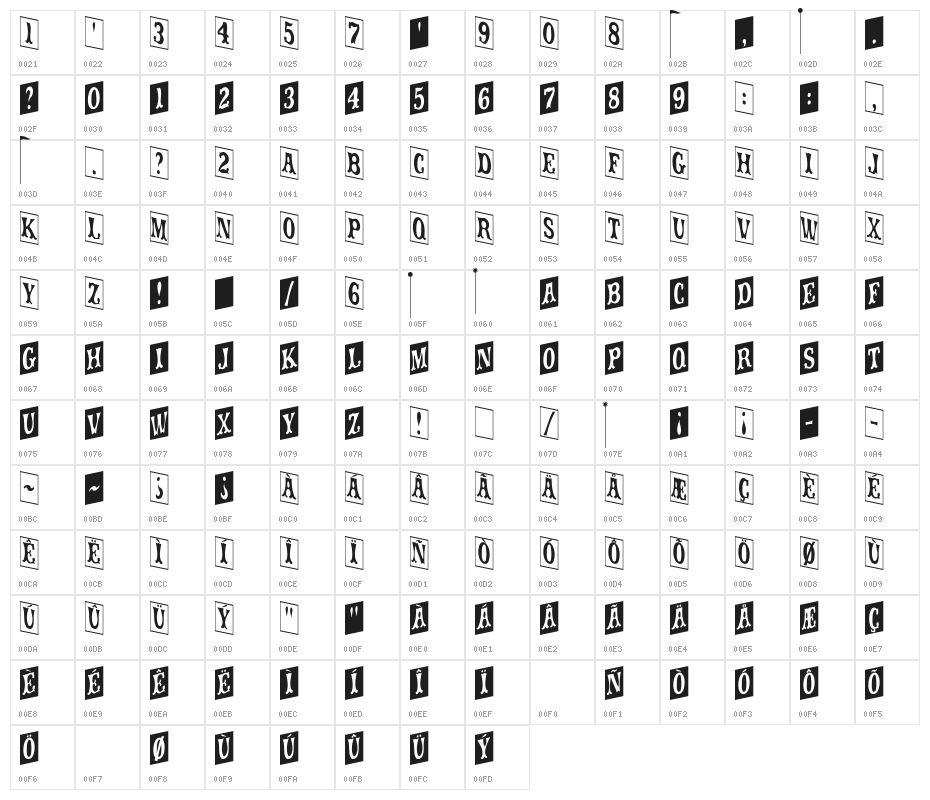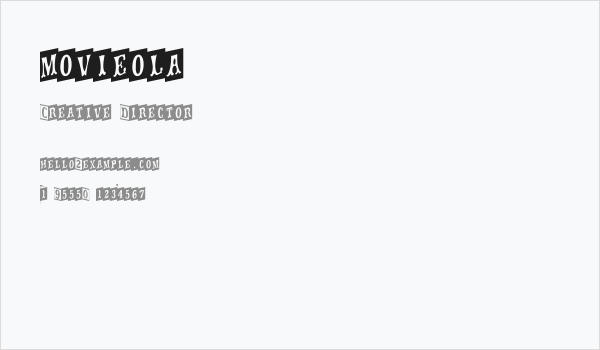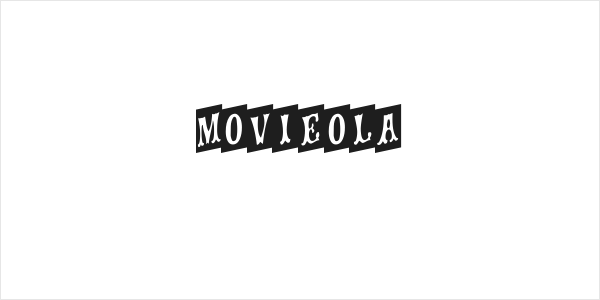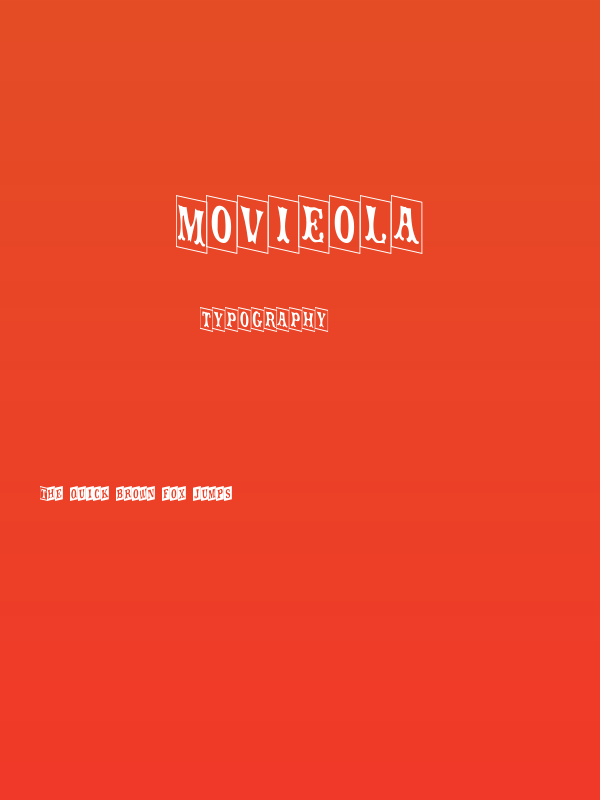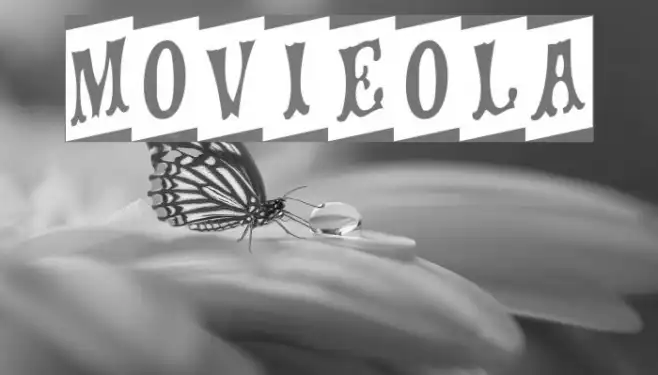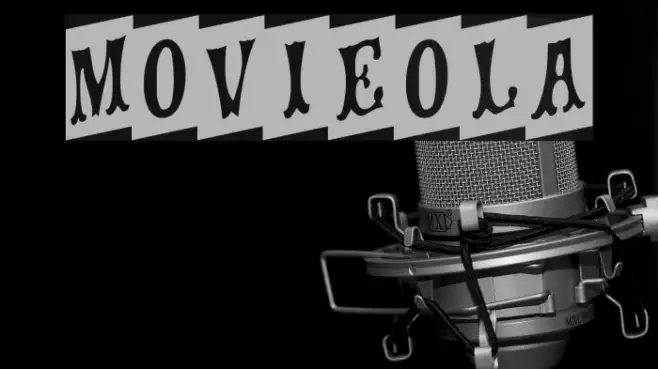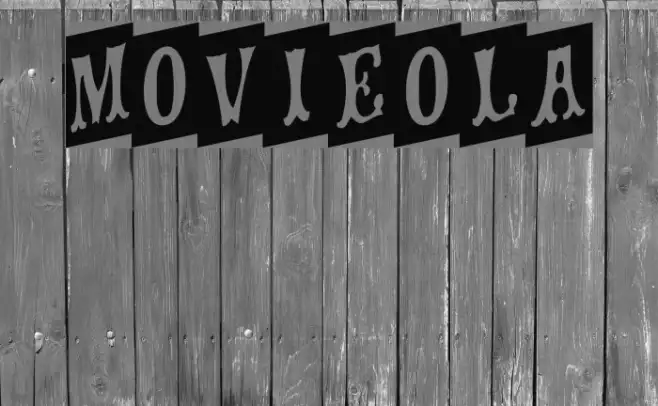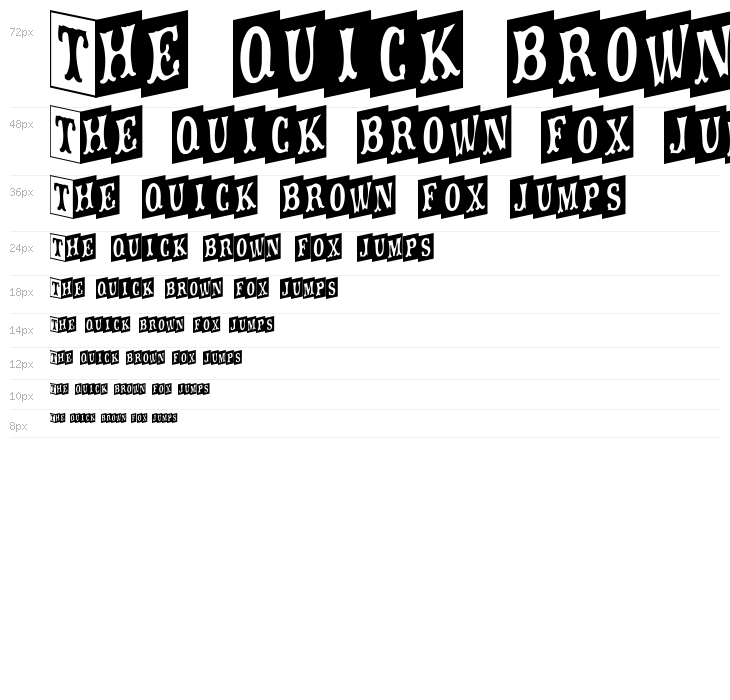
movieola Font
movieola Description
This font features a bold and decorative style with a vintage flair. Each character is enclosed in a tilted rectangular frame, creating a dynamic and eye-catching effect. The letters have a unique, playful design with varying stroke thickness, adding to their whimsical appearance. The numbers and special characters follow the same stylistic approach, ensuring consistency across the typeface. The overall look is reminiscent of retro signage or classic movie posters, making it ideal for projects that require a touch of nostalgia and creativity.
| Overall Style | Vintage, Decorative |
| Proposed Projects | Ideal for retro-themed posters, vintage branding, creative advertisements, and eye-catching headlines. |